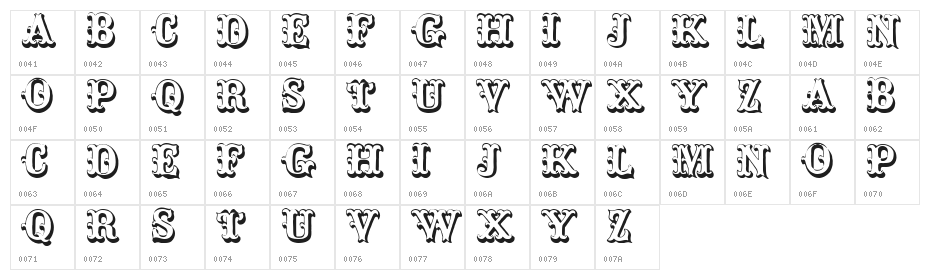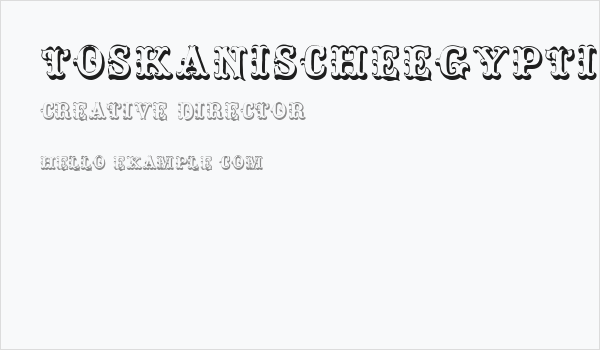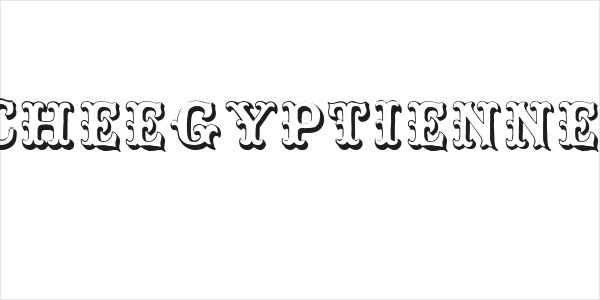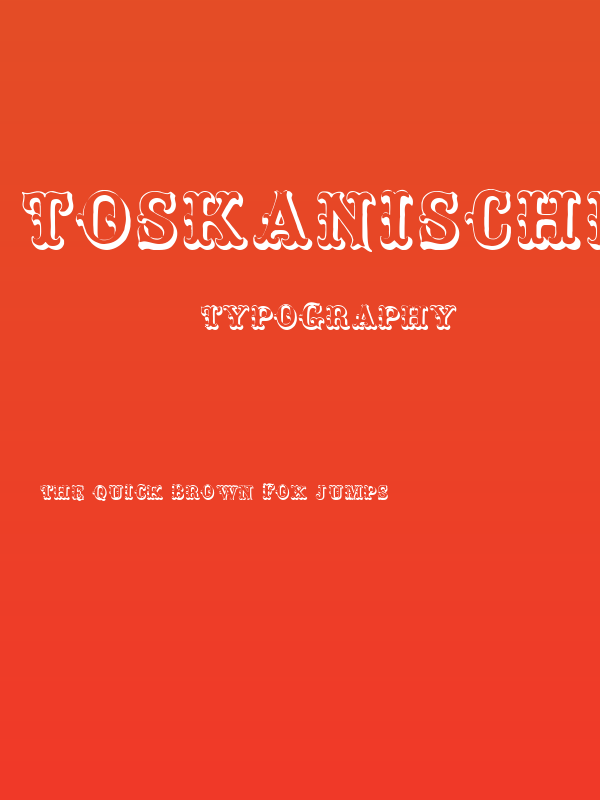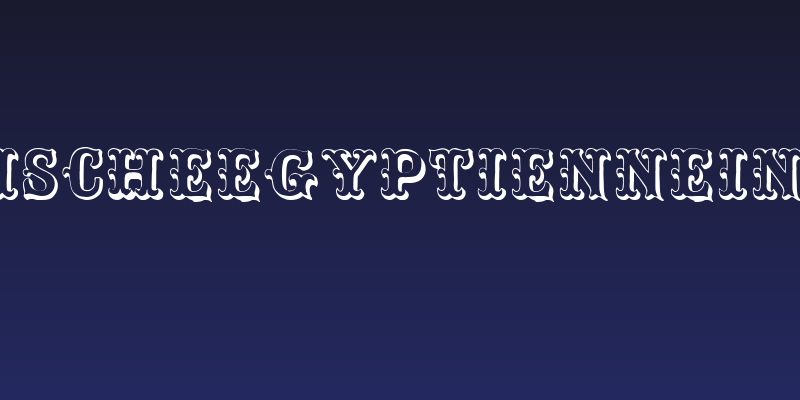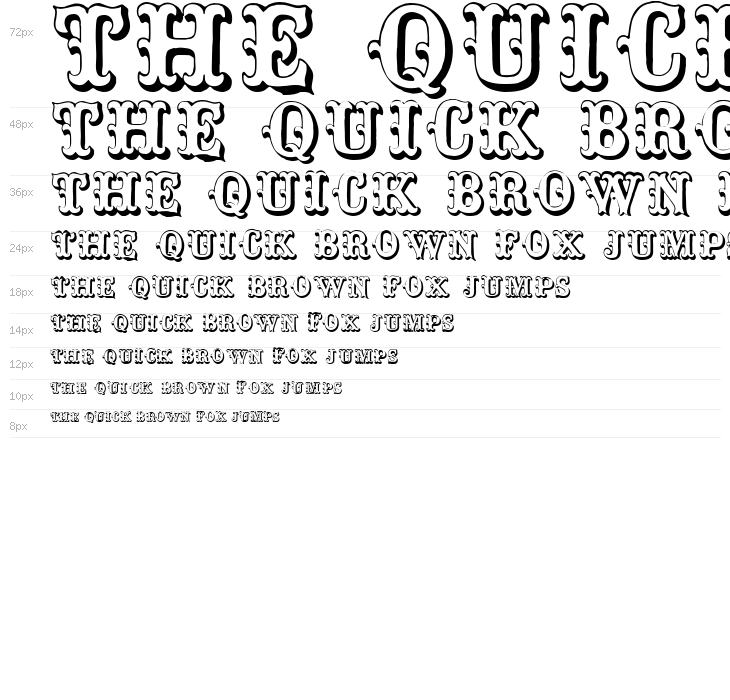
ToskanischeEgyptienneInitialen Font
ToskanischeEgyptienneInitialen Description
This font features a bold and decorative style with intricate detailing that gives it a distinct and ornate appearance. The characters are embellished with flourishes and curves, creating a sense of elegance and sophistication. The font's design is reminiscent of vintage or classical typefaces, often used in decorative or display contexts. The bold strokes and high contrast between thick and thin lines make it stand out, while the intricate details add a touch of complexity and artistry. This font is ideal for projects that require a strong visual impact and a touch of historical or artistic flair.
| Use Case | Headlines, Logos, Decorative elements |
| Proposed Projects | Ideal for vintage posters, decorative signage, book covers, and branding that requires a classical or artistic touch. |